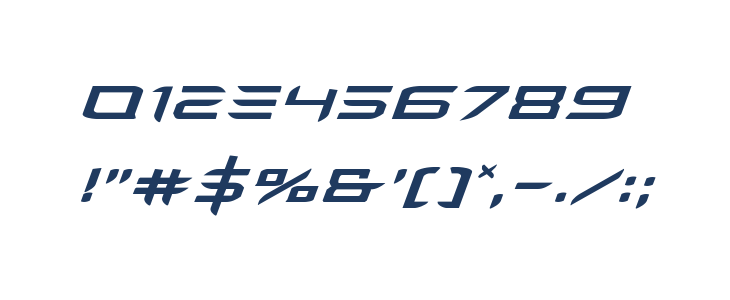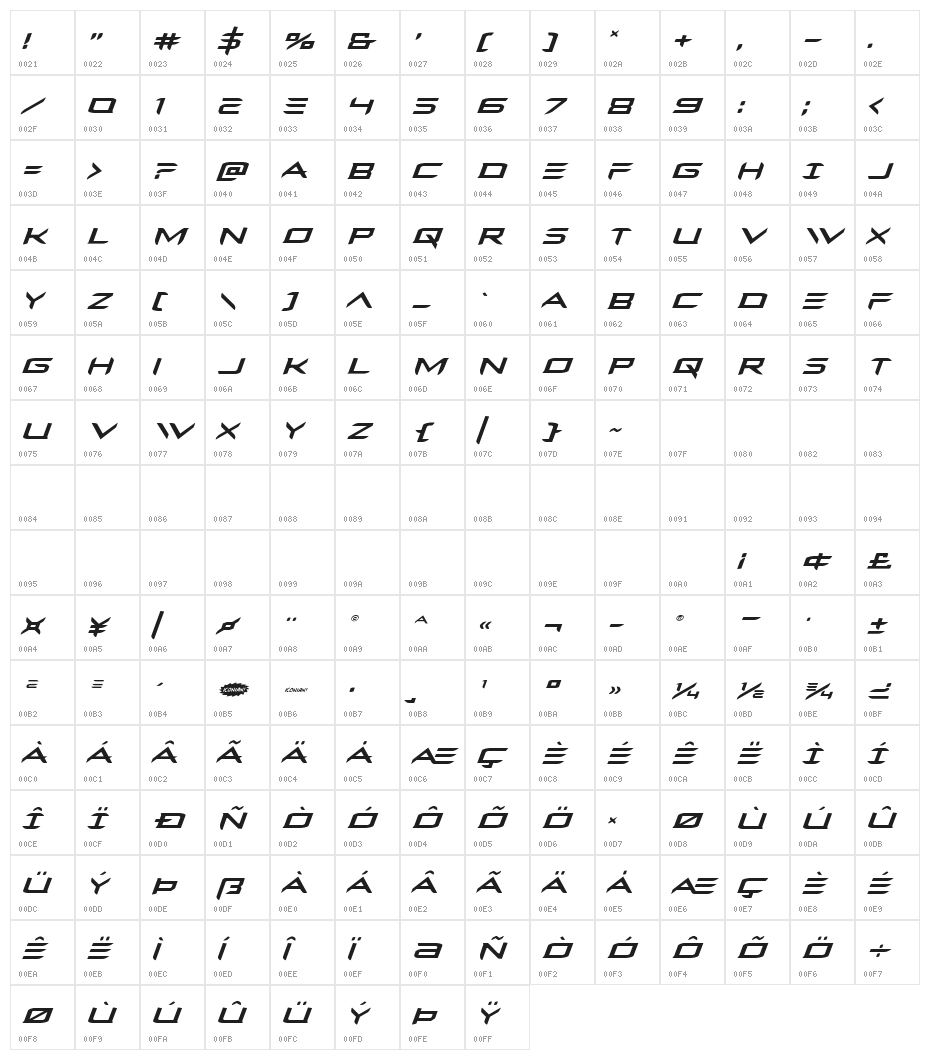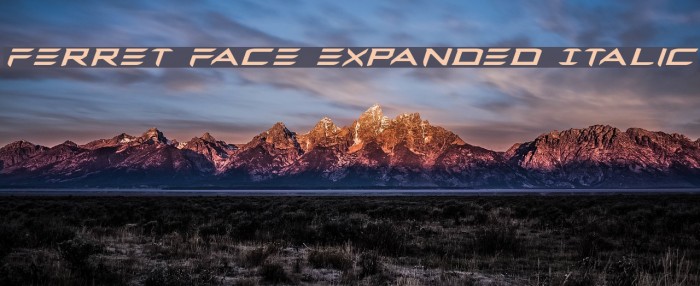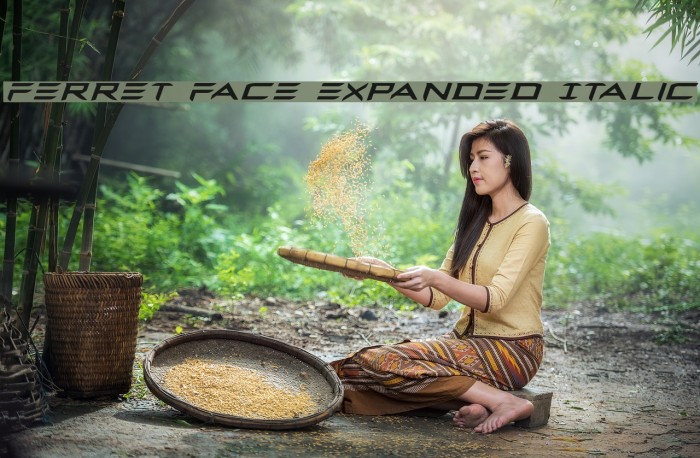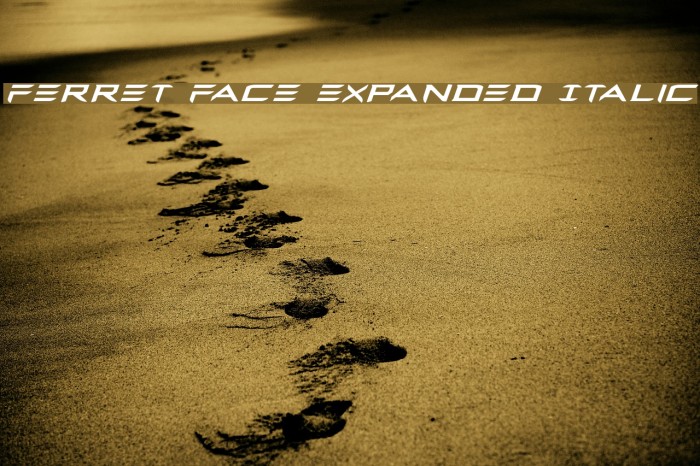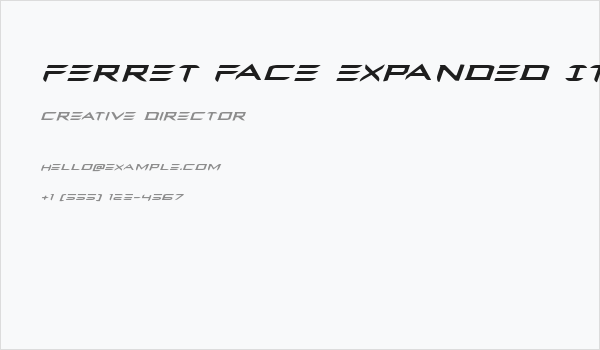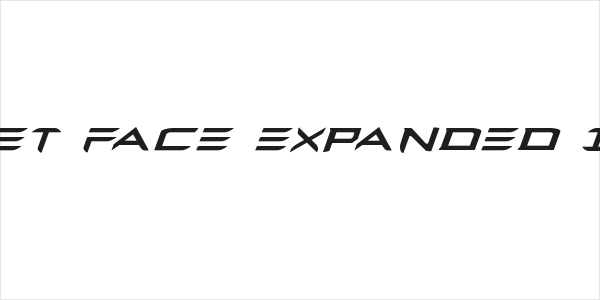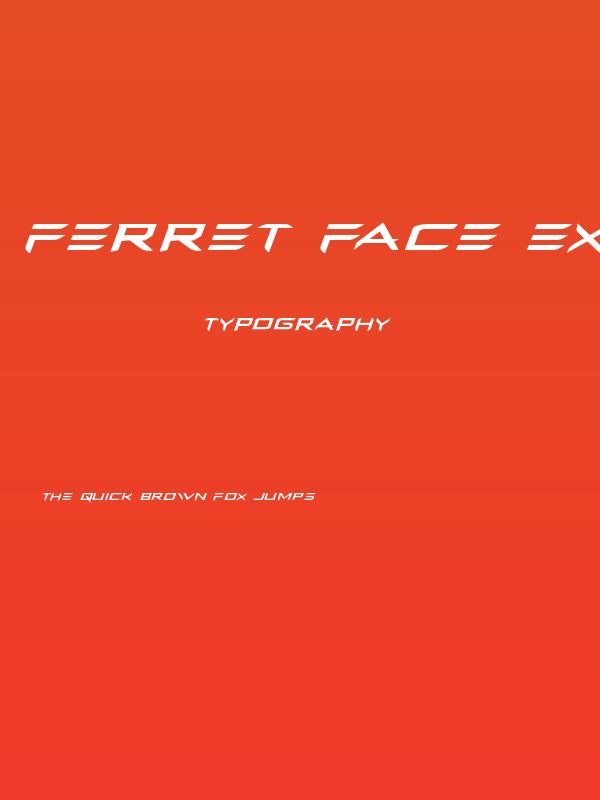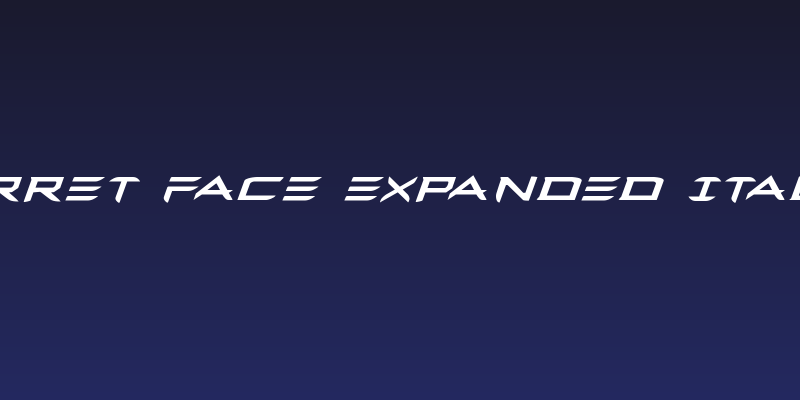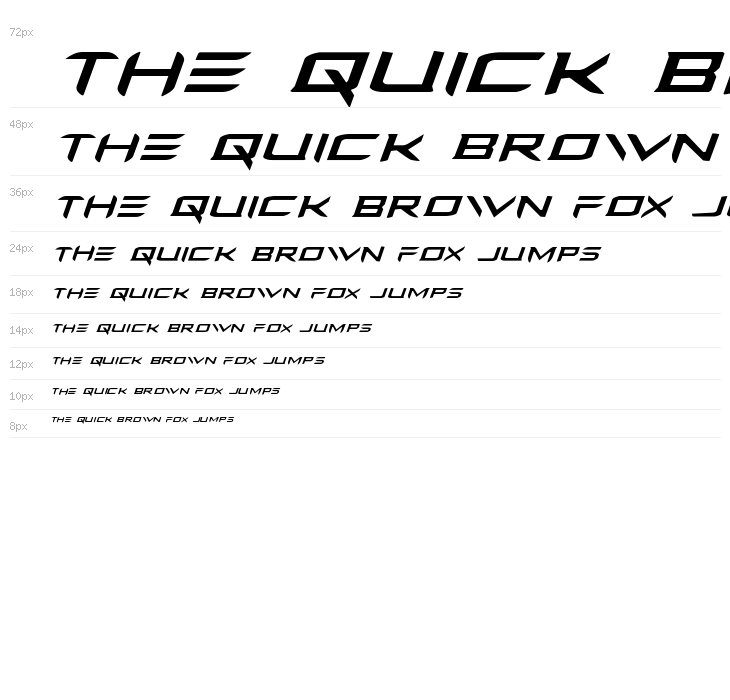
Ferret Face Expanded Italic Font
Ferret Face Expanded Italic Description
This font features a futuristic and dynamic design with sharp, angular edges and a forward-leaning italic style. The characters are expanded, giving them a wide appearance that enhances their boldness and presence. The uppercase and lowercase letters maintain a consistent style, with a unique geometric flair that suggests speed and modernity. Numbers and special characters follow the same design principles, ensuring uniformity across all glyphs. The font's distinct style makes it ideal for projects that require a strong, impactful visual statement.
| Proposed Projects | Ideal for sci-fi themed designs, technology branding, video game titles, and dynamic posters. |